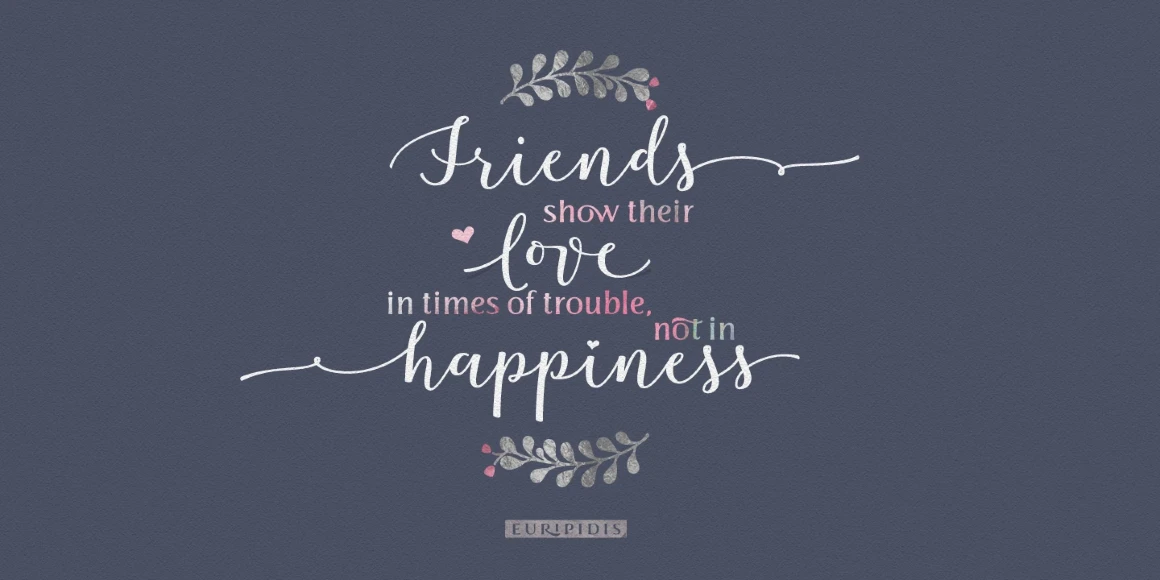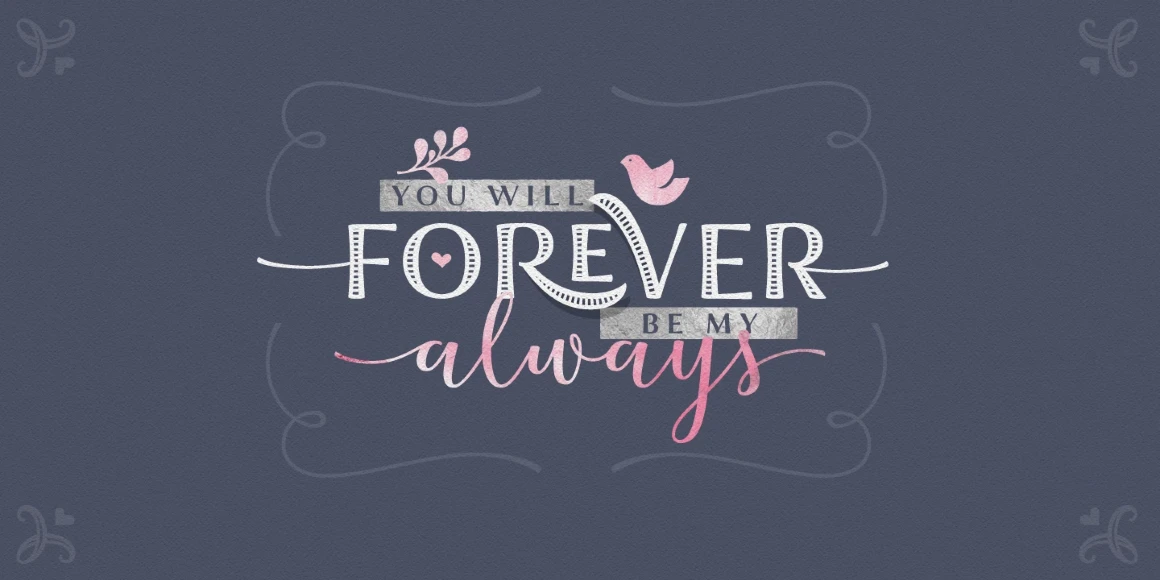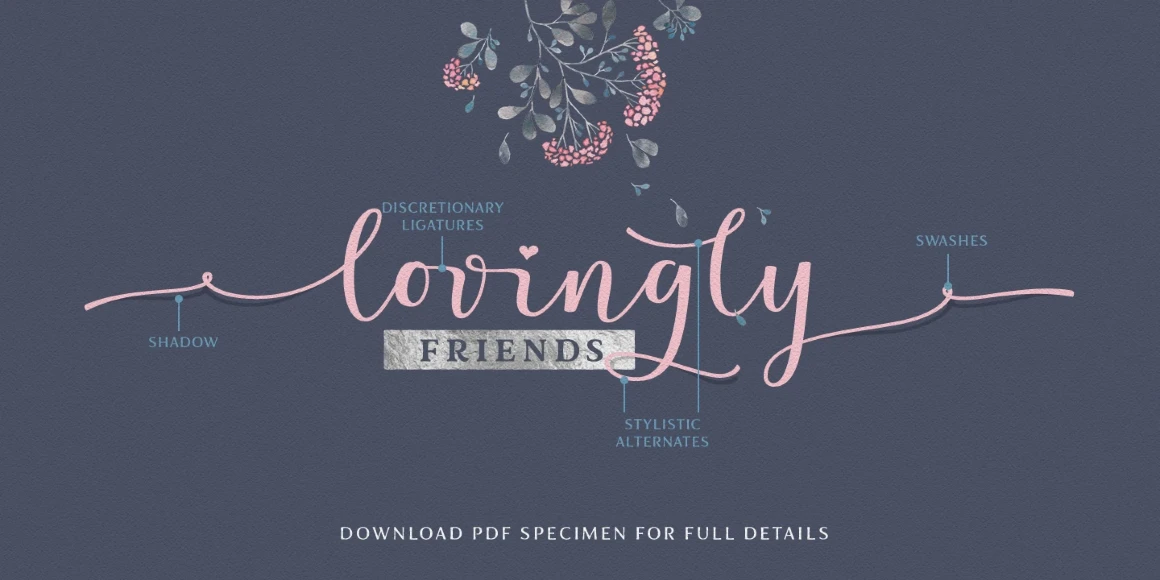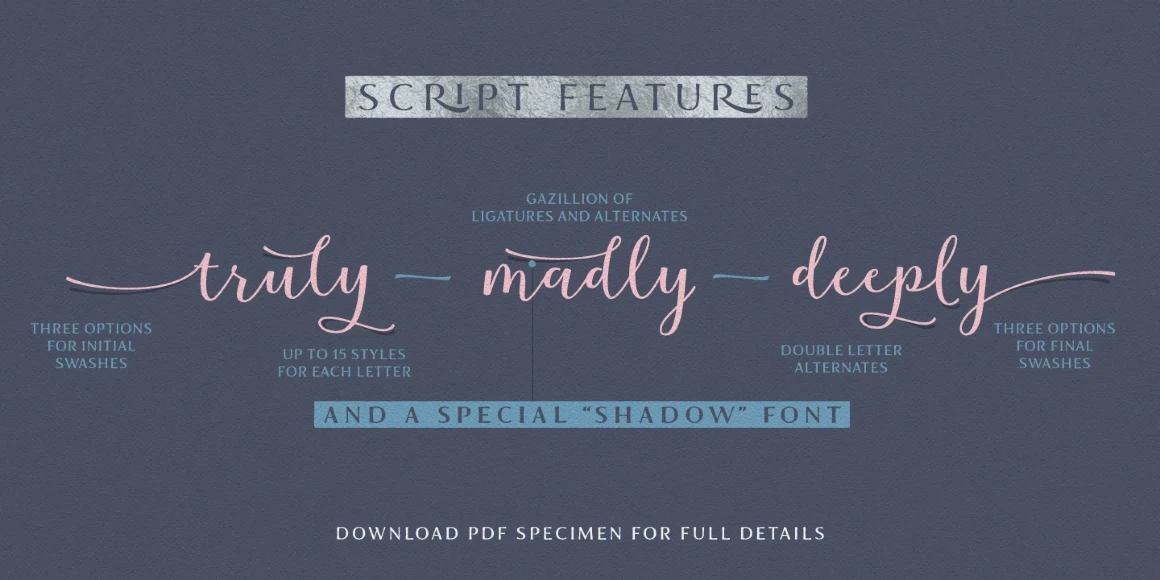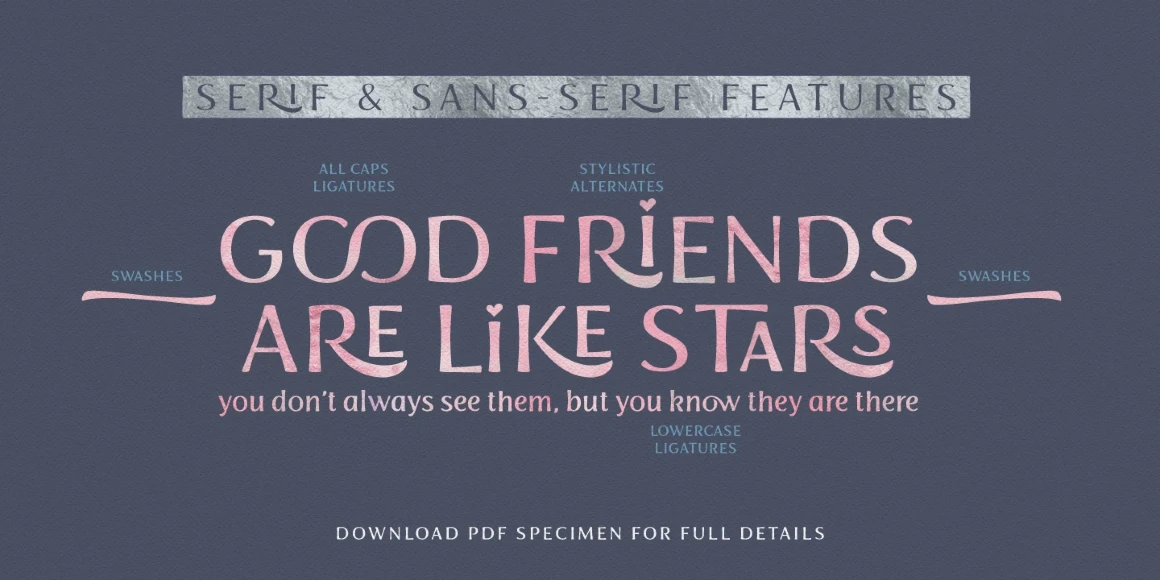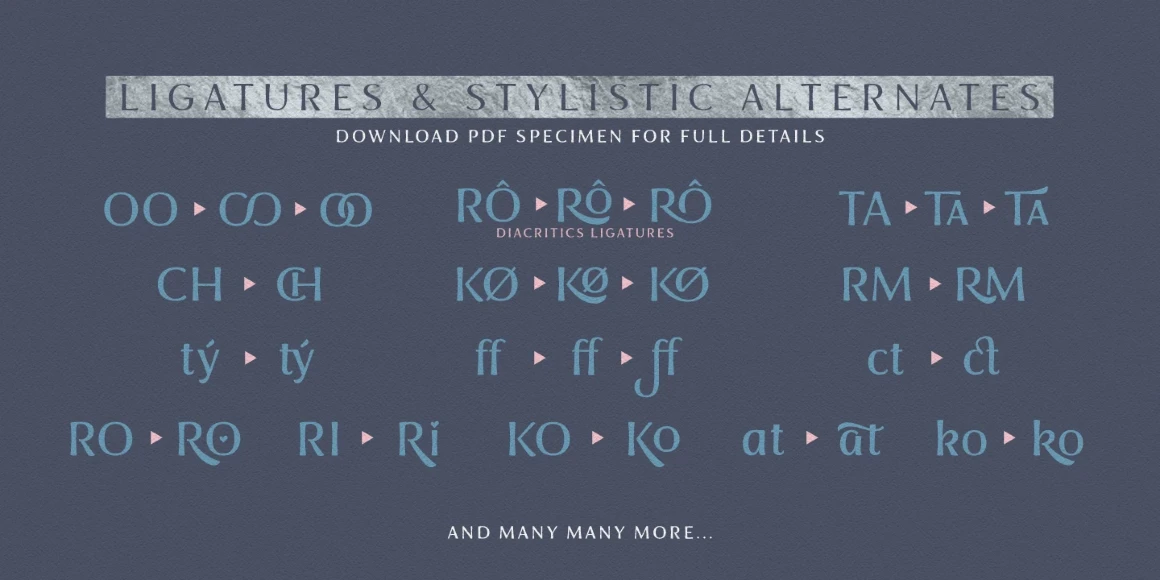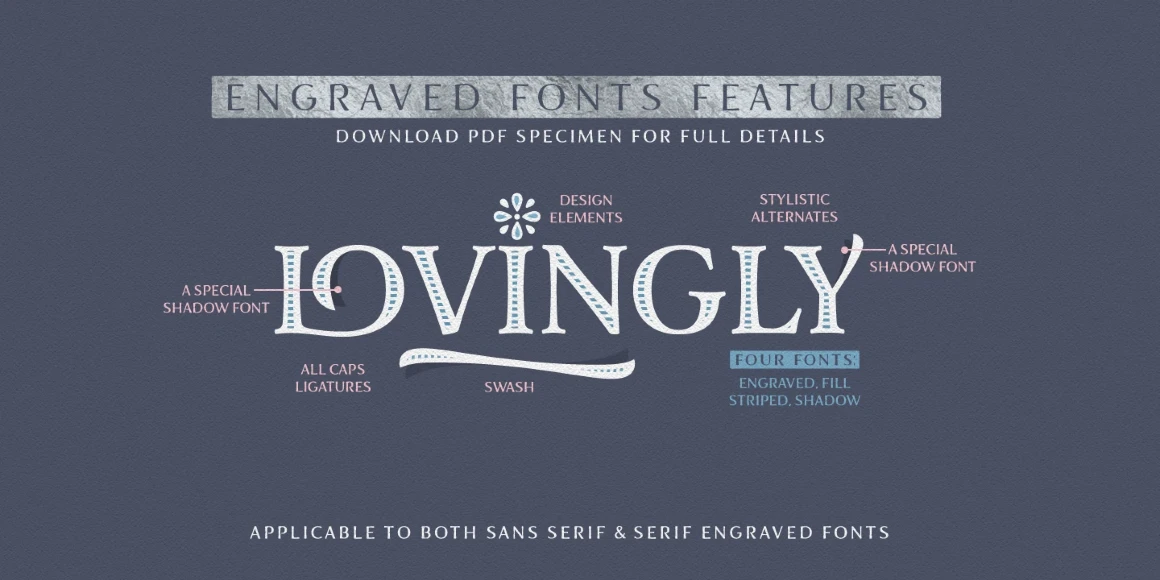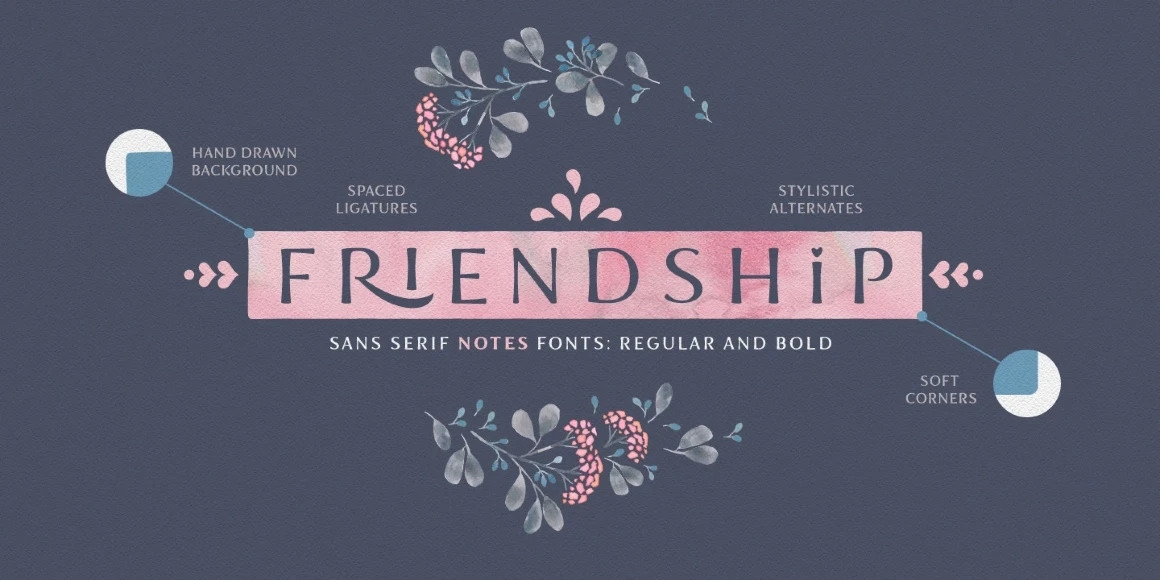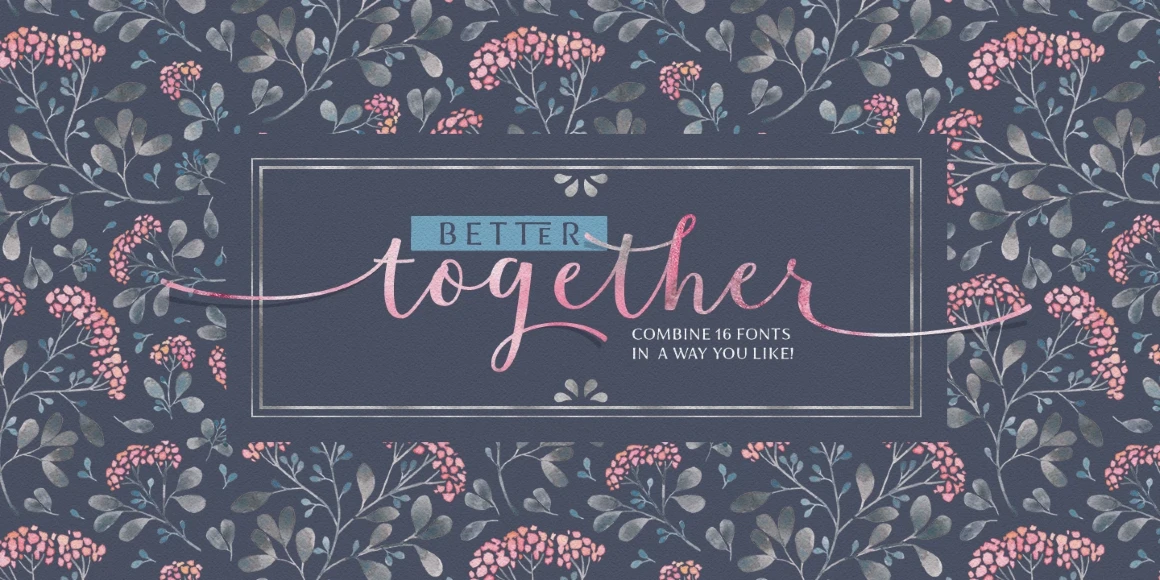
Lovingly Friends
From My Creative Land
Lovingly Friends is a classy community of fonts that get along together as well as best friends do. The entire family — Sans, Serif, Notes, and Script — is packed with alternates and ligatures, plus Extras that are perfect for adding stylistically similar details, too! Mix them! Match them! They will look balanced together as well as individually. Lovingly Friends has an excellent range of styles, from readable captions and paragraphs to attention-grabbing headlines and titles.
Designed by Elena Genova